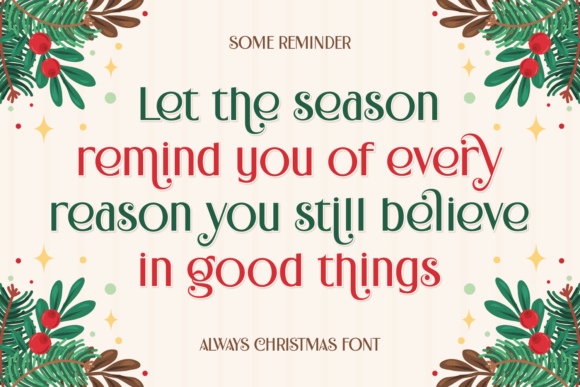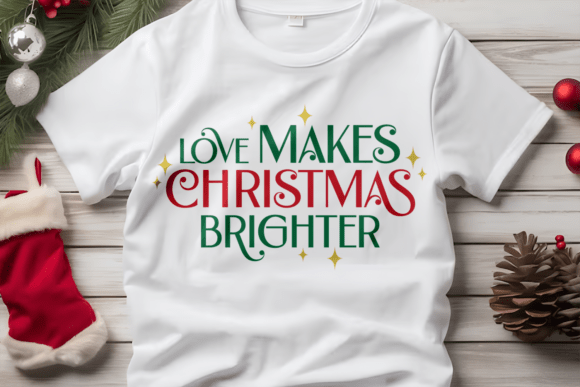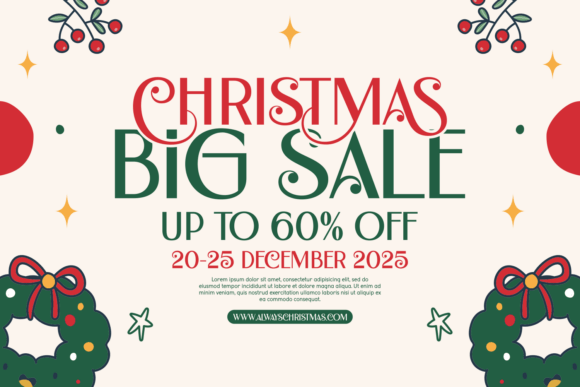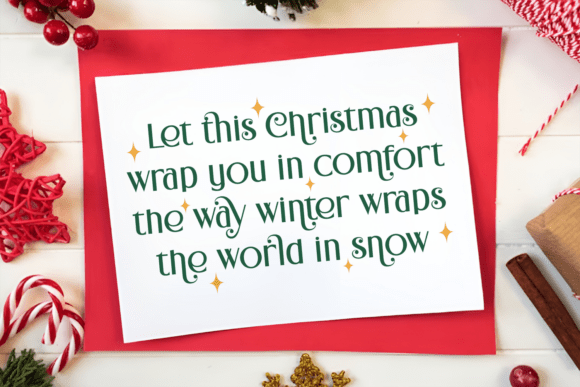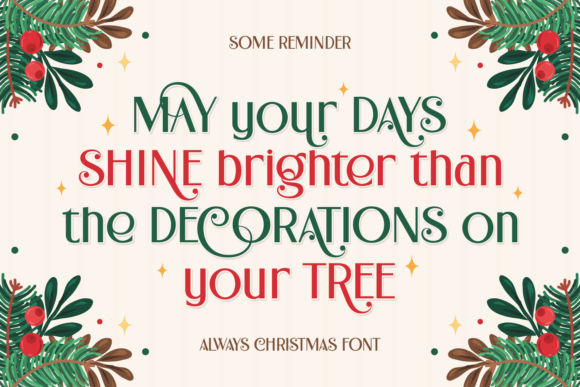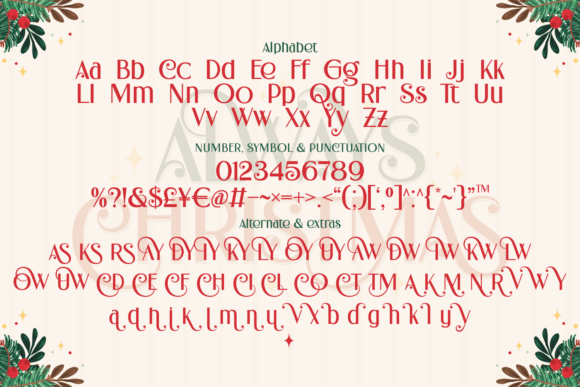
Introducing Always Christmas Font: The Ultimate Holiday Display Font
Are you looking for a font that embodies the warmth, charm, and festive spirit of the holiday season? Look no further than Always Christmas Font, a modern Christmas display font designed to bring joy and magic into every design. With its elegant curves, decorative swirls, and beautifully balanced letterform, this font is perfect for designers and crafters who want to add a touch of festive cheer to their seasonal projects.
A Perfect Blend of Modern and Traditional
Always Christmas Font strikes the perfect balance between modern sophistication and traditional holiday charm. Its clean sans structure provides a professional foundation, while its playful Christmas flourishes add a touch of whimsy and fun. This font is ideal for designers who want to create a holiday aesthetic that is both elegant and joyful.
Handcrafted with Love and Care
Every character in Always Christmas Font feels handcrafted with love and care, making it perfect for designers who want to add a personal touch to their holiday designs. The font’s decorative swirls and elegant curves are carefully crafted to evoke the magic of the holiday season, making it perfect for a wide range of design projects, from holiday cards and invitations to festive posters and social media graphics.
Key Features of Always Christmas Font
- Elegant Curves and Decorative Swirls: The font’s elegant curves and decorative swirls add a touch of festive charm to every design.
- Beautifully Balanced Letterform: The font’s beautifully balanced letterform ensures that every word and sentence looks stunning and easy to read.
- Clean Sans Structure: The font’s clean sans structure provides a professional foundation for any design project.
- Playful Christmas Flourishes: The font’s playful Christmas flourishes add a touch of whimsy and fun to every design.
Always Christmas Font is perfect for designers and crafters who want to add a touch of festive cheer to their holiday designs. Whether you’re creating holiday cards, invitations, posters, or social media graphics, this font is sure to bring joy and magic to your designs. Its versatility and ease of use make it perfect for a wide range of design projects, from personal to commercial.
Tips for Using Always Christmas Font
- Pair it with a Simple Background: Always Christmas Font looks stunning against a simple background, allowing the font’s elegant curves and decorative swirls to take center stage.
- Experiment with Colors: The font’s clean sans structure and playful Christmas flourishes look great in a variety of colors, from traditional holiday colors like red and green to more modern colors like gold and silver.
- Use it for Headings and Titles: Always Christmas Font is perfect for headings and titles, adding a touch of festive charm to any design project.
Always Christmas Font is a modern Christmas display font that is sure to bring warmth, charm, and festive joy into every design. With its elegant curves, decorative swirls, and beautifully balanced letterform, this font captures the magical spirit of holiday celebrations. Whether you’re a designer or crafter, Always Christmas Font is the perfect choice for adding a touch of festive cheer to your holiday designs.